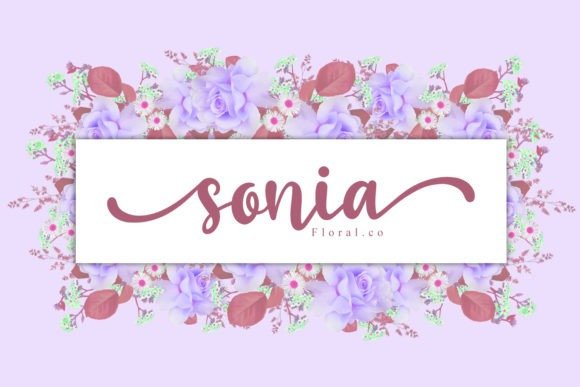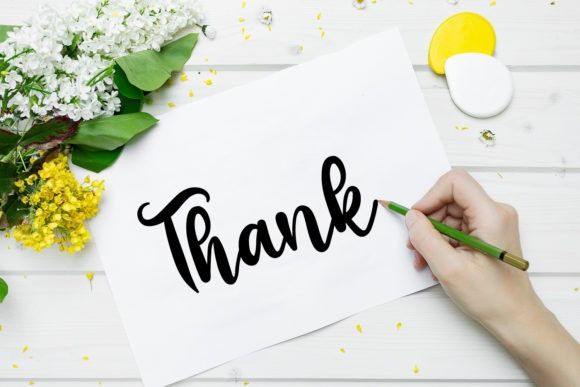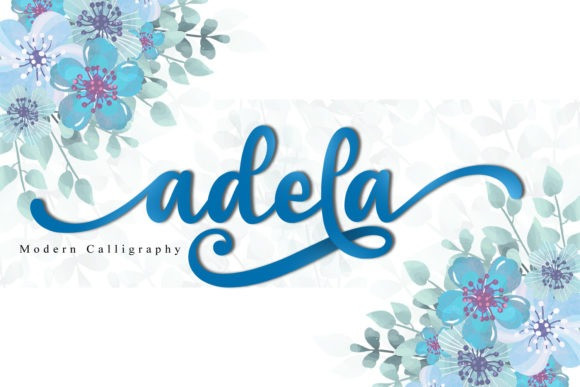
Haston Script Font
Hello Everyone! Introducing our newest font : Haston ! This is a new vintage classic DUO typeface. It has a sans serif and script handwriting glyph. This is exclusive, fresh, elegant, unique and stylish glyph.
It has 3 styles: regular, bold, and script. This font will be Great for branding, logo, stationery, business card, signage, flyer, brochure etc. There are many industries that is suitable for this font : cafe, music, restaurant, motorcycle, racing, wedding, personal brand, cosmetic, salon, makeup artist, etc